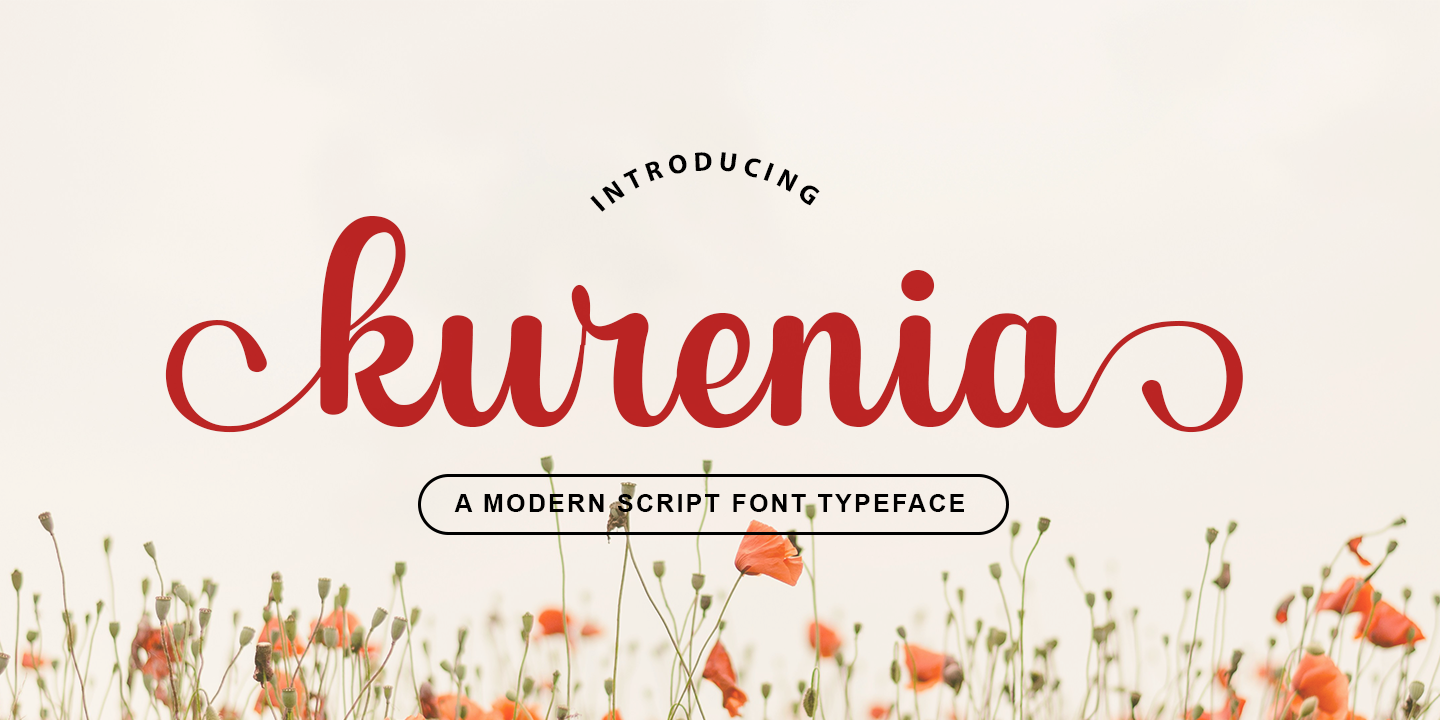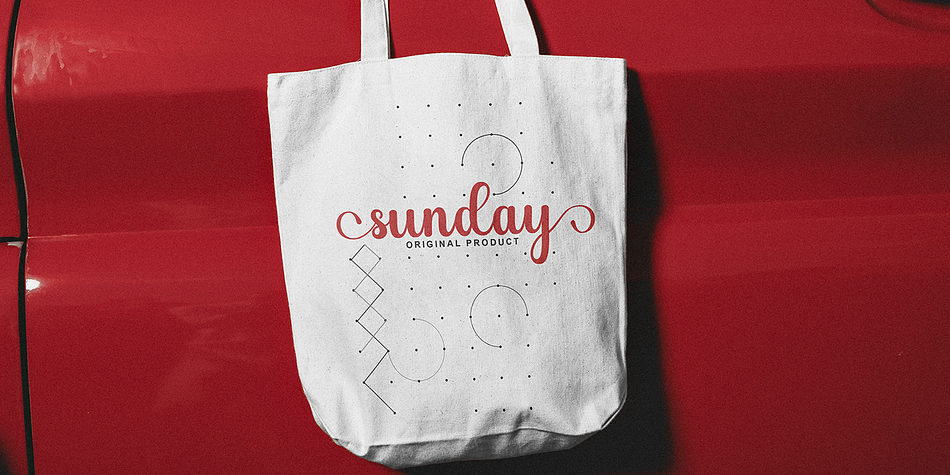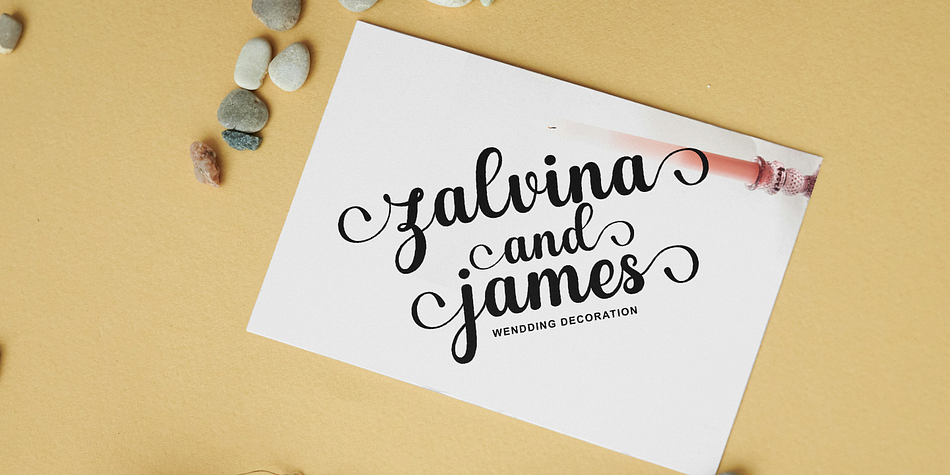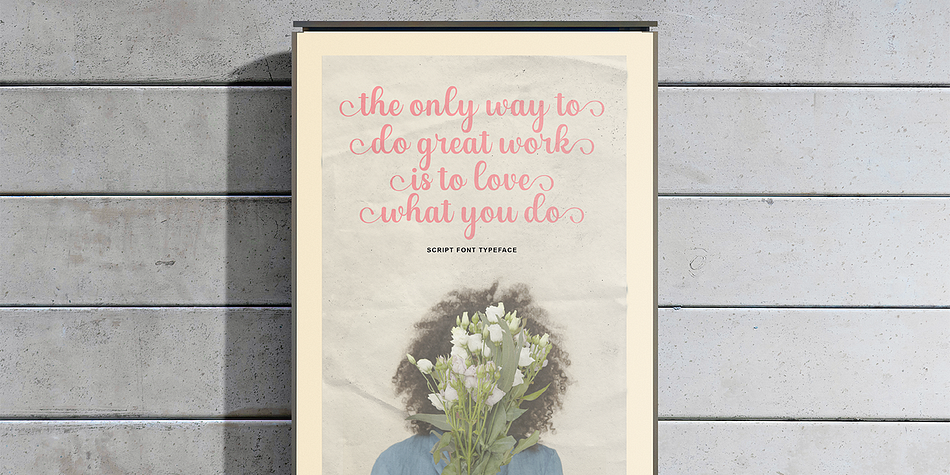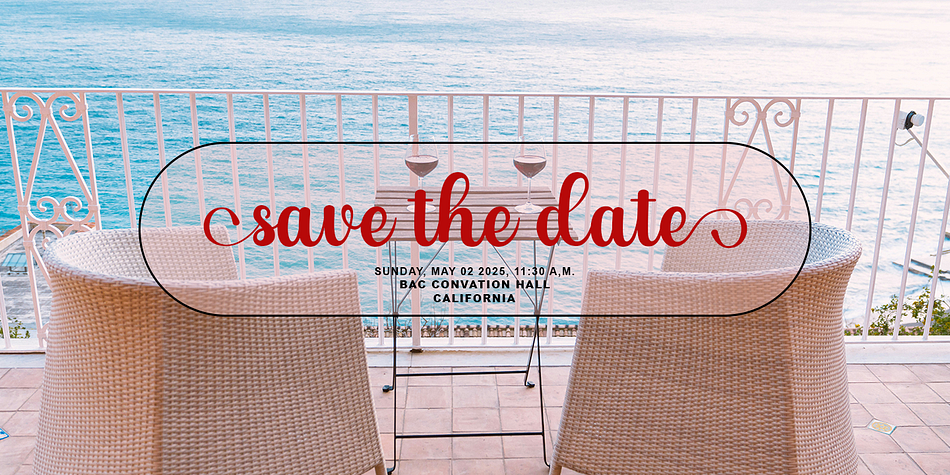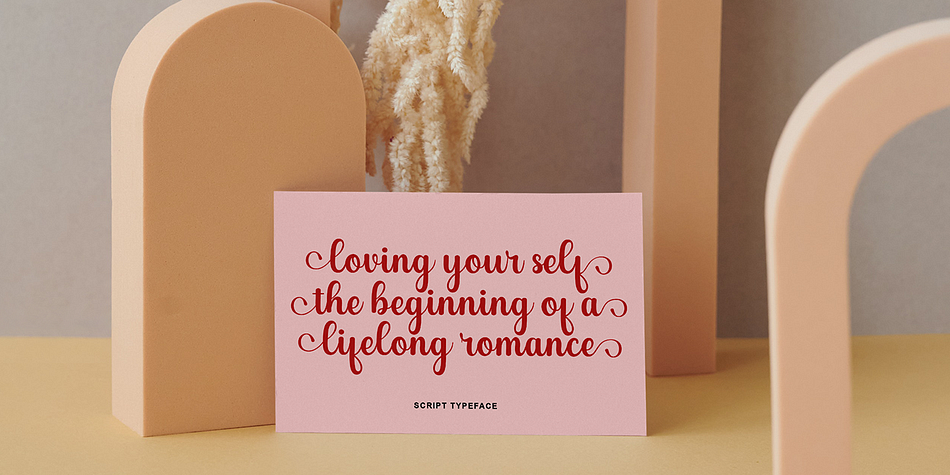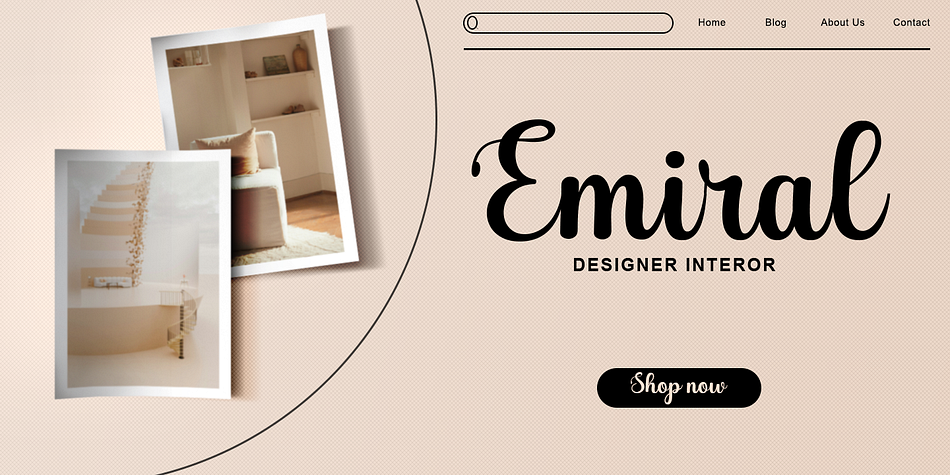
Kurenia
Kurenia is a brush script font family published by Gatype.
Kurenia is a script font characterized by its elegant and feminine style. This font is typically used for designs that require a delicate and beautiful touch, such as wedding invitations, branding, or other creative projects. The letterforms flow smoothly with varying thickness, adding an artistic feel.
Kurenia often includes ornaments or ligatures that enhance the overall appearance of the text.